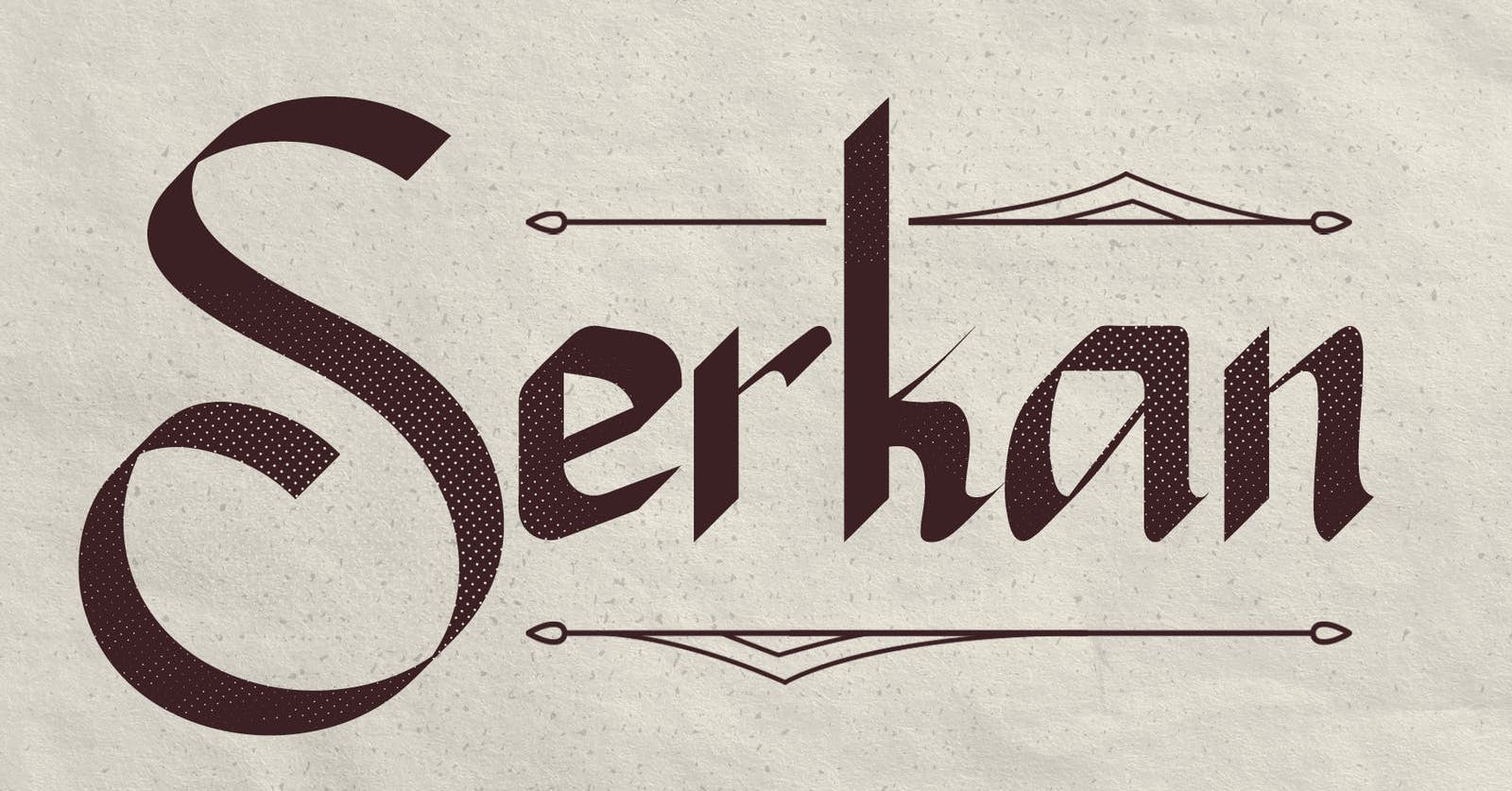
Type Factory [Hilmius Akbar]
Bandung, Indonesia-based designer of these fonts in 2020: Antonie, Black House, Black Passion (a dry brush script), Brentley, Charmelya, Galguna, Hackbot (a pixel font), Hailey, Hello Madelyne, Hi Rolley, Hollowtown (graffiti), How Dare You, Life Of Apple, Monkey Geek, Punkiss, Randhu, Reviola, Sendha, Seymore, Silver Flower, Someday, Sounding, Speedkings, The Speciment, Thundra.
Typefaces from 2021: How Dare You (grungy vintage caps), Mystic Forest (a chalk font), Hello Jones (a vintage shadow font), My Home (a fat finger font), Honey Jar (handprinted), My Fox (a scrapbook font), Beachfly (a decorative serif), Hardinge (a hand-drawn blackletter), Chalkboy (sketched).
Their catalog in 2022 showed 250 fonts: Abilane, Abrock, Acetone, Aestetic, Allista, Amal Baik, Aquarex, Archking, Aslah, Authentique, Avena, Avoda (a fashion mag sans), Baker's Dozen, Bakery Home, Baleho, Baloba, Bancak, Bangke, Barnies, Bayleigh, Beach Hits, Beachfly, Big Heroes, Big Jelly, Big Tales, Black Passion, Blackold, Bloody Camp, Bluffton, Bodor, Bratton (spurred), Bricius, Brickrow, Brickson, Brutaly, Bunaken, Came Back, Candola, Candyful, Carisyn, Chalkboy, Charmelya, Cider Lime, Classy, Coconutz, Cold Army, Combust, Coming Sans, Cordion, Cosmogen, Crabug, Crow Bait, Cutenest, Cybersky, Daewon, Dandely, Dark Magic, Day n Nite, Daya Sans, Death World, Debug, Delta Force, Destro (stencil), Dirty Drags, Dutch Brigade, El Mayor, Elecstrom, Exton, Fall Season, Fall Story, Fire Ace, Fronzy, Fun Show, Galguna, Garden Bloom, Gludak, God Doll, Golday, Grane, Grateful Life, Gummies, Gunji (Japanese emulation), Hackbot, Hacklife, Hadest, Hadeya, Hailey, Hakan, Hakio, Hakubo (Japanese emulation), Haloha, Happy Gnome, Hara, Hardinge, Harvest Day, Harvest Time, Hastag, Hazeland, Hello Jones, Hello Madelyne (a calligraphic script), Hellow, Helsinky, Hey Jack, Hey Jane, Hiccup, Hollowtown, Home to Rome, Honey Belly, Horrific (a horror font), How Dare You, Howling Nightmare, Jackal Band, Javanica (a vintage label typeface), Jonks, Jungle Hope, Just For You, Just Ruth, Kahlil, Kana & Hana, Kanatala, Kastil, Kesal, Killing Me, King Castle, King Malik, Klassiek (a crayon font), Kohatu, Kulo, Kurayami (Japanese emulation), Last Mission, Legendary Runes, Life Rolling, Life of Apples, Lubang Hitam, Madsense, Madtune, Maluku, Marsea, Marsela, Marshed, Mauricio, Melon, Mexican City (a Western slab serif), Miami Beat (a multiline font), Mighty Star, Mika Story, Mister Hipster, Mistery, Mistis (spooky), Mocktail Blues, Modeon (a wonderful layered all caps sans), Moeloek, Monde, Monkey Geek, My Fox, My Home, Mystic Forest, Night Vibes, Nightscary, On My Way, Orchard Song, Ovalie, Panikos, Parylicious, Poked, Princess Star, Punkiss, Qabil, Quirky Bay, Rabiul, Racula, Randhu, Rebutan, Reclaim Glory, Rekan, Remily, Renji, Retro Sick, Reviola Bold Script, Risky Venture, Romeda (a vintage serif), Runboy, Salacia, Saluyu Script, Sandatory, Savilla, Savon Burg, School Kids, Scribery, Secret Mansion, Seledina, Semur, Sendha, Senja, Sensai, Serkan (a Celtic font), Seymore, Shade June, Shayan, She Dance, Shocked Up, Show Up!, Shufen, Shutter Speed, Sketchup (a sketched font), Skullbone, Sneak Peak, Snooby, Soda Land, Someday, Sorreal, Sounding, Space Corner, Speedkings, Spirit Freak, Steak House, Sticky Web, Stitch Boy, Story of Alundra, Summer Blaze, Summer Blues, Summer Creamy, Sundae Bite, Sunday Coffee, Sunkiss Bliss, Sweet Beans, Sweet Cherry, Tangisan, The End Story, The Millers, The Speciment, Thundra, Ugly Byte, Uncracked, Urbanded, Vintage Wheel (a retro signage script), Voltec, Wake Snake, Walers, Walk Away, Wavemax, Weloved, West Yard, Wicked, Wild Justice, Winola, Wonder Magic, Wonder Soul, Wrecked Works.